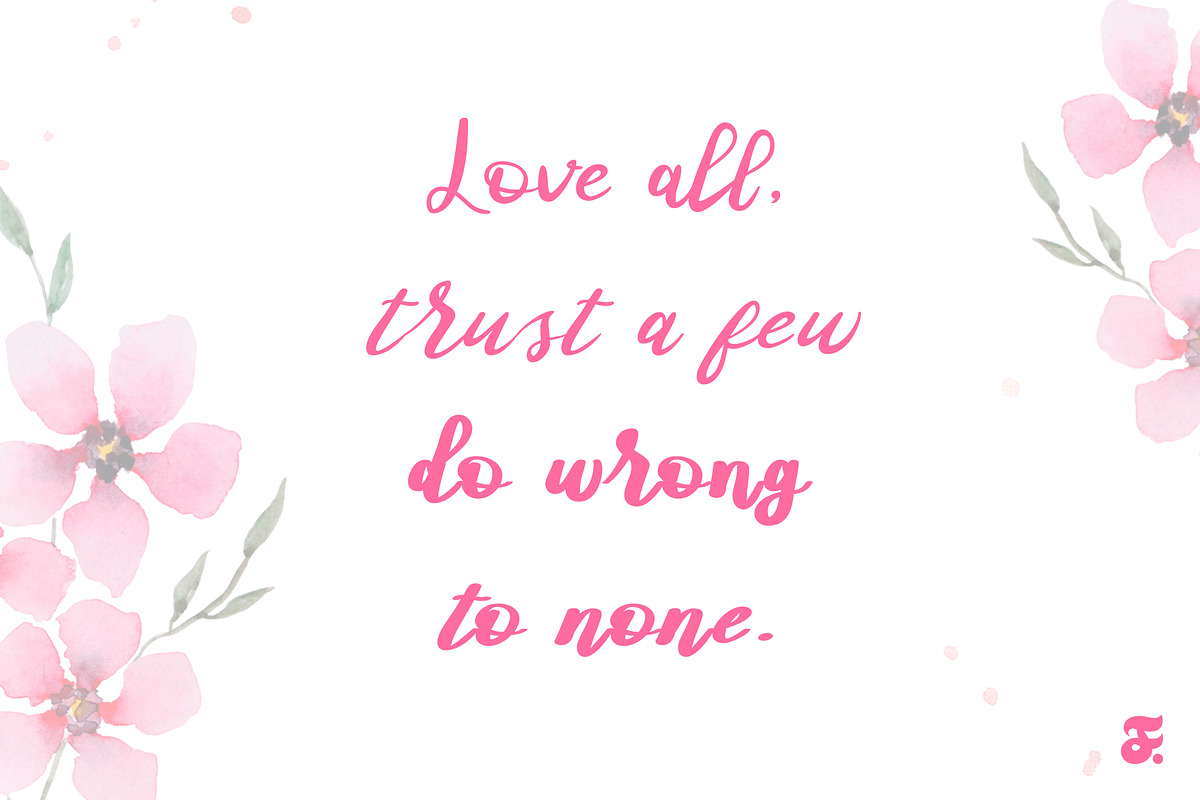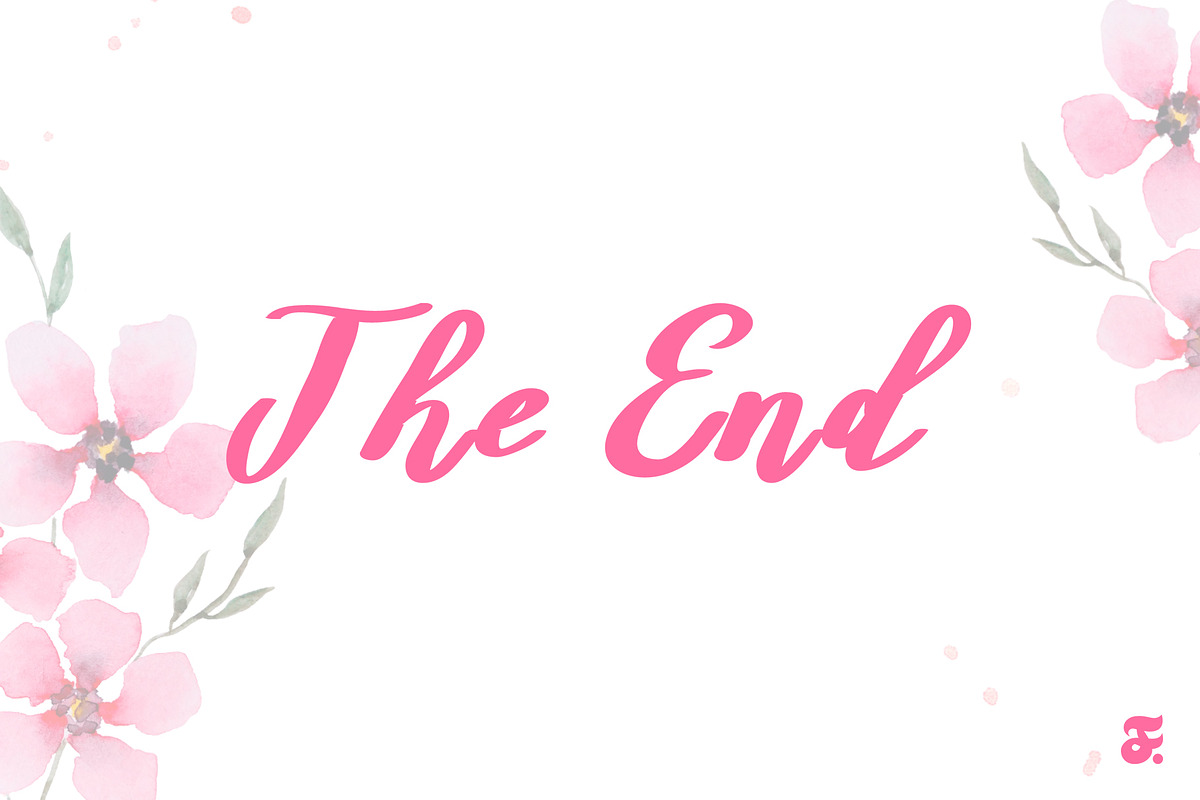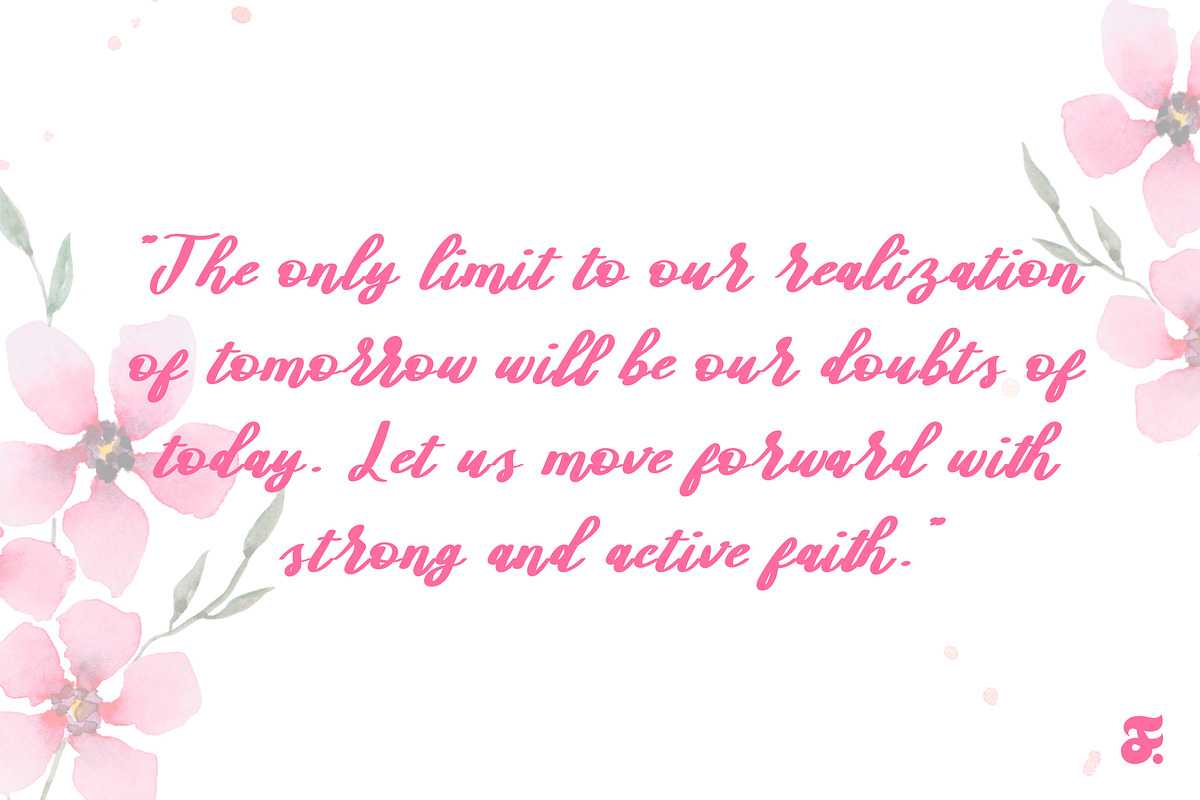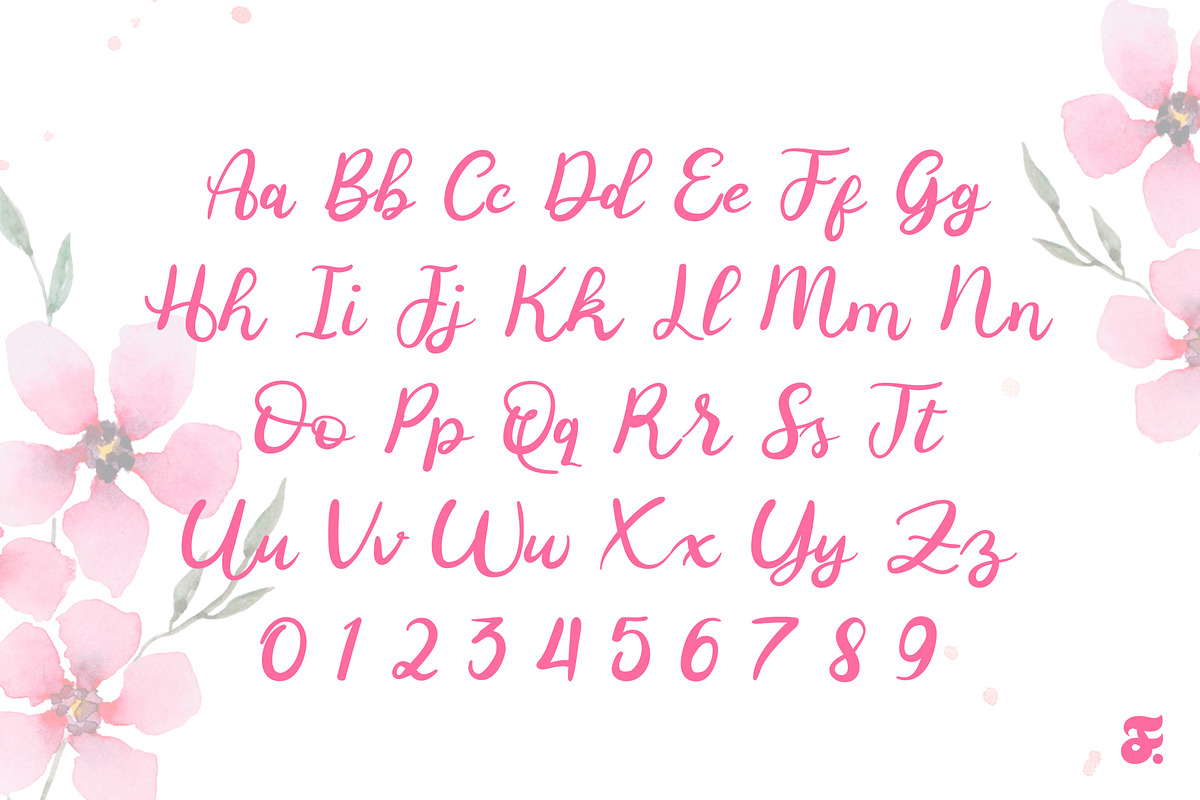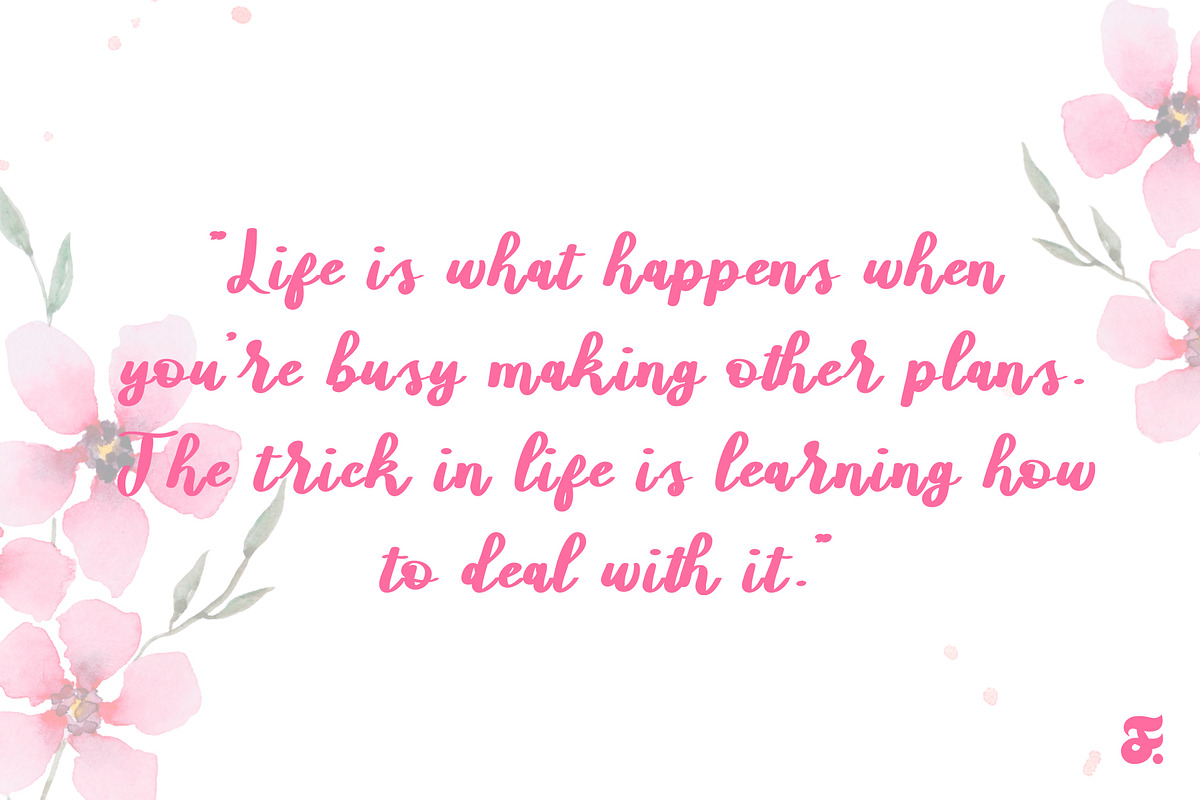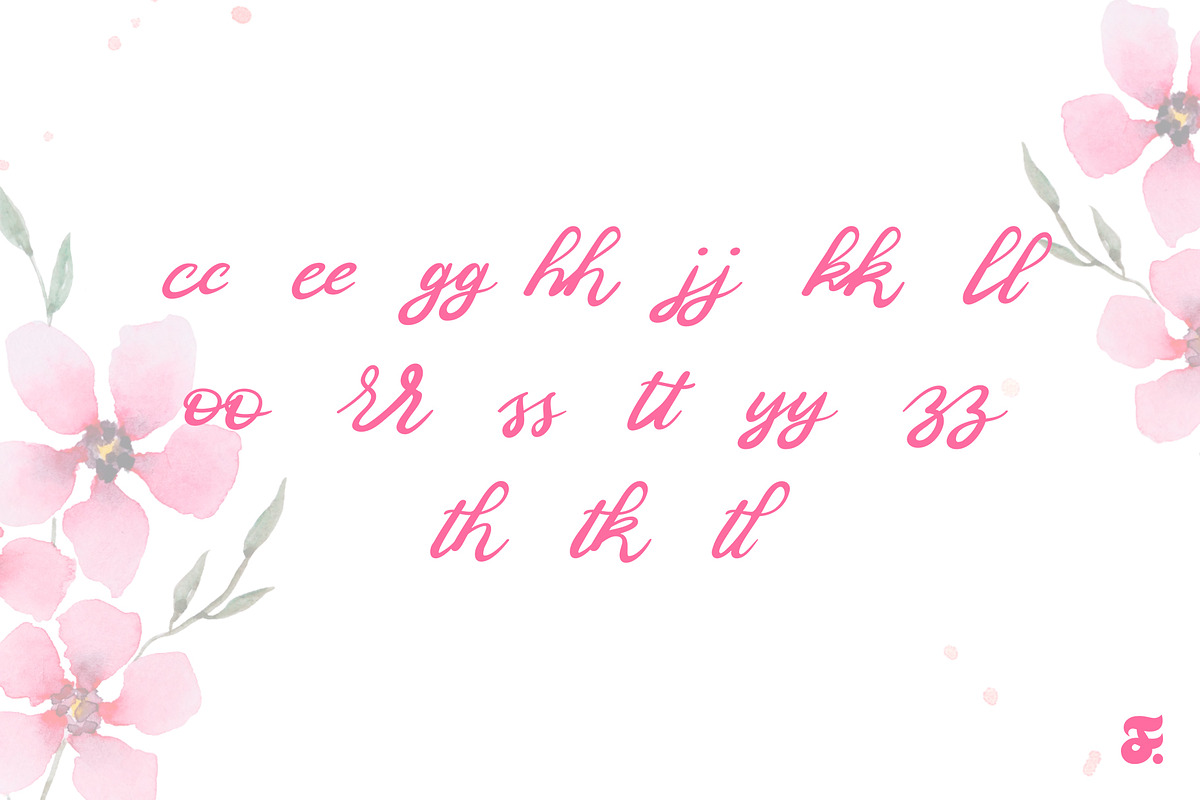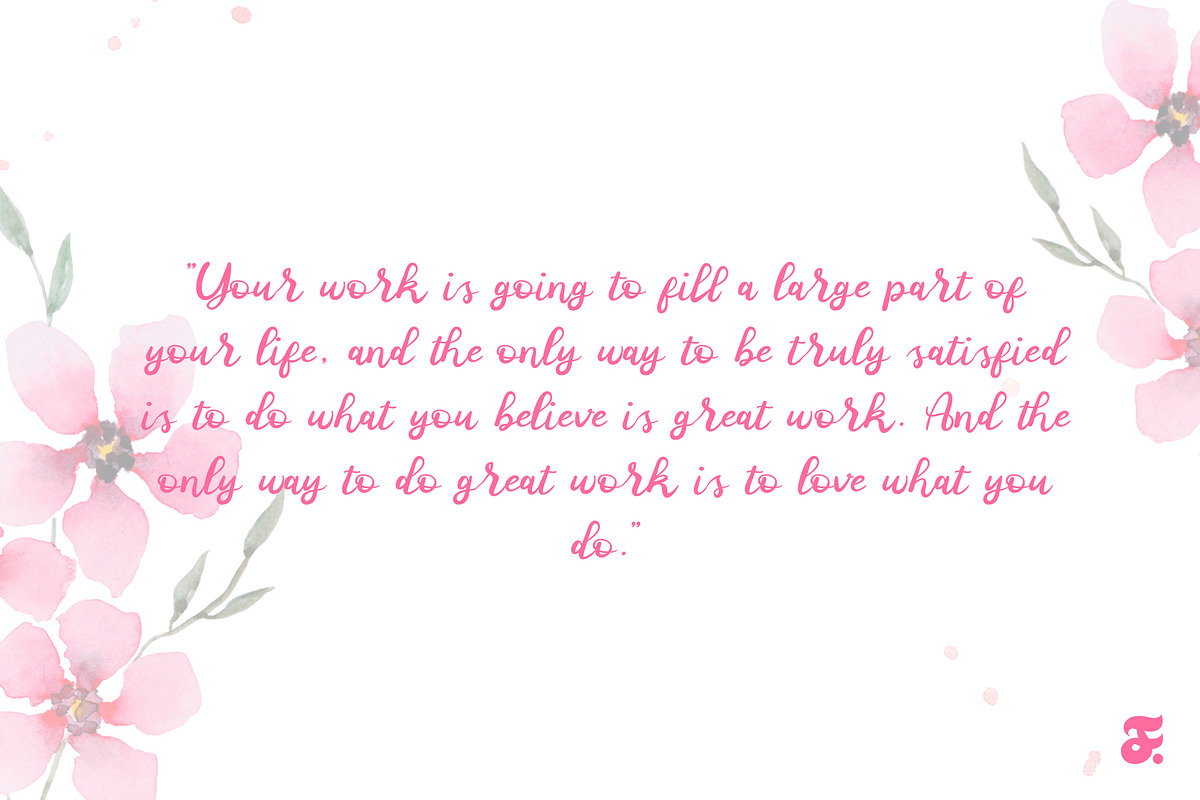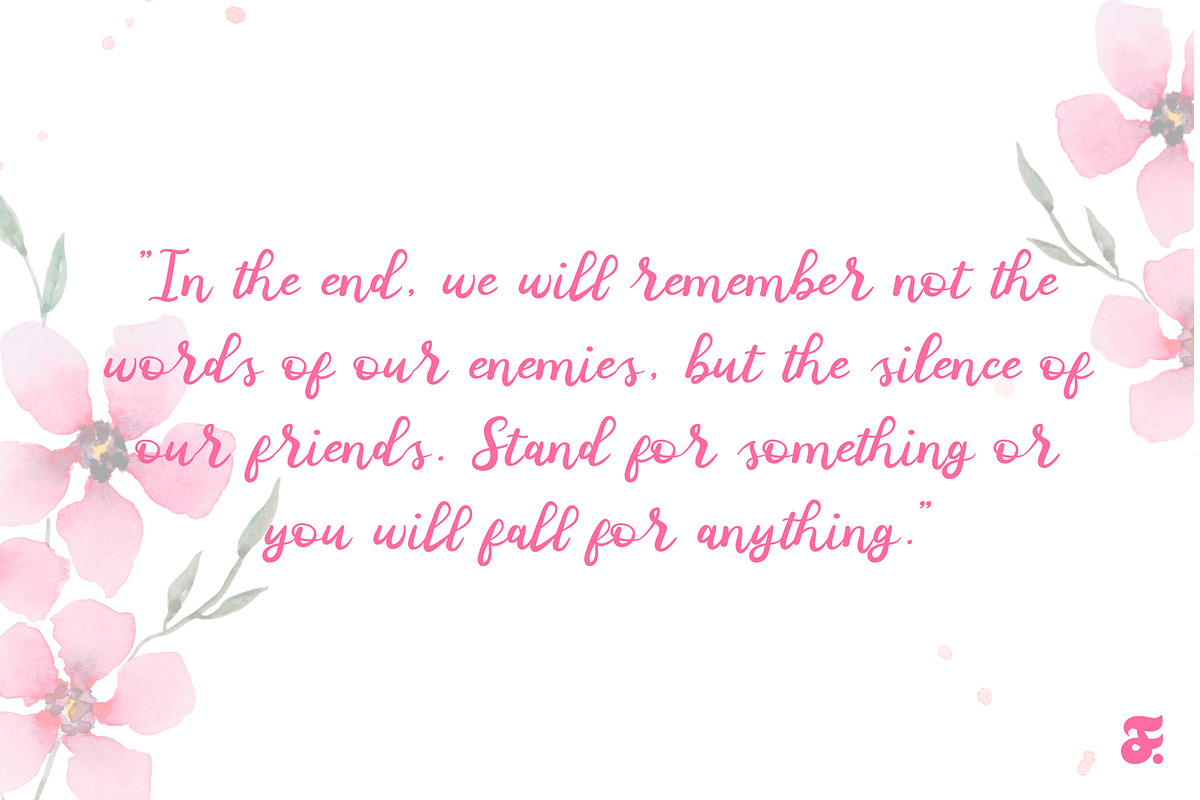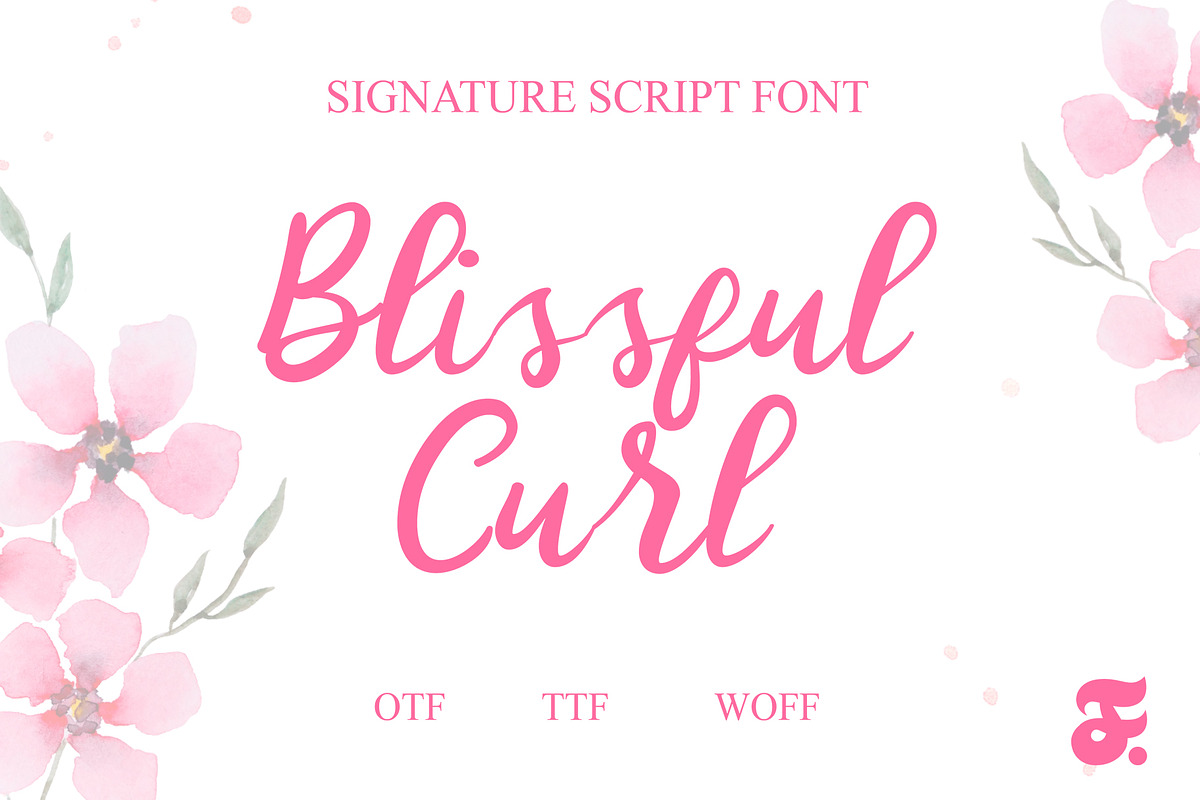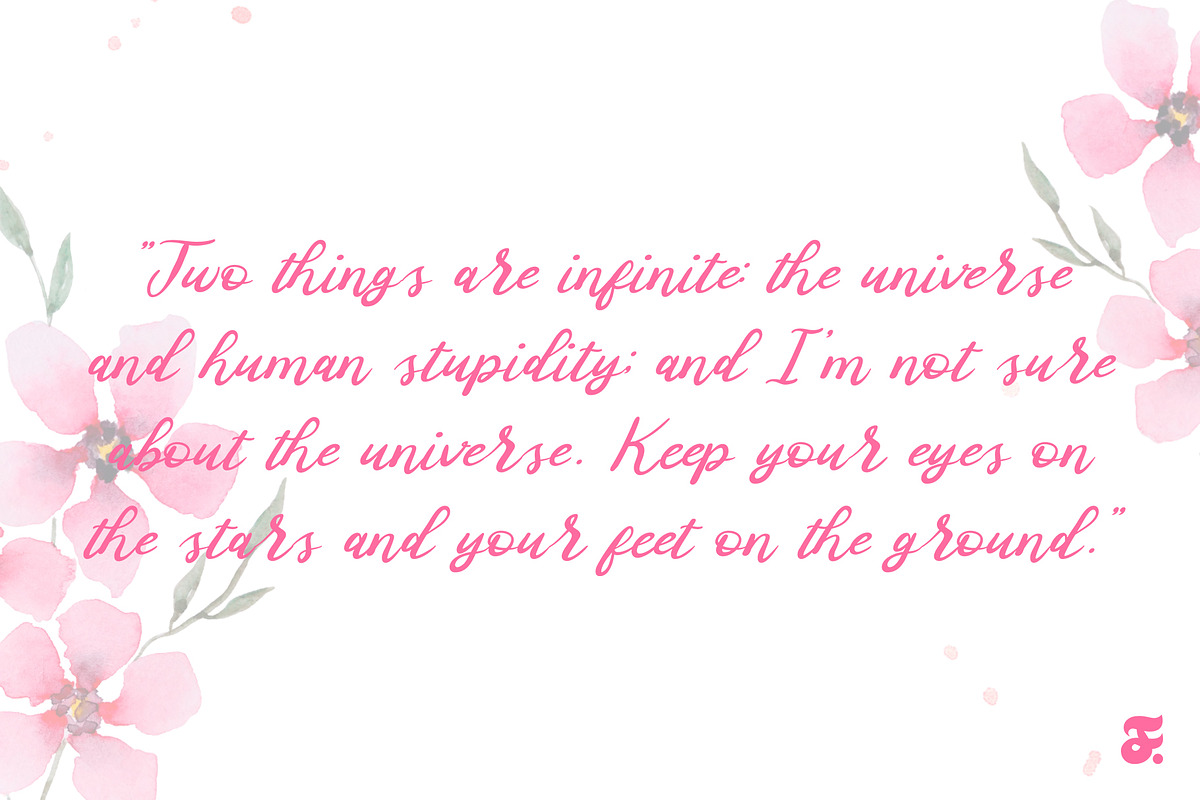
Blissful Curl Typerface
Blissful Curl Handwriting Script Typeface is a delightful fusion of elegance and playfulness, bringing a touch of whimsy to any design project. The typeface is meticulously crafted to mimic the fluidity and spontaneity of hand-drawn script, lending a personal and authentic feel to text. The characters exhibit a graceful curvature, reminiscent of cursive handwriting, with each stroke seamlessly connecting to the next, creating a harmonious flow that adds a touch of sophistication to any written expression.
This typeface is a versatile addition to the designer's toolbox, perfectly suited for a myriad of applications. Whether used in invitations, branding, or packaging, Blissful Curl effortlessly infuses a sense of warmth and friendliness. Its handwritten charm is accompanied by a subtle sense of modernity, making it equally fitting for contemporary projects. The typeface is designed with legibility in mind, ensuring that it not only captivates with its aesthetic appeal but also remains easily readable across various platforms.
Blissful Curl Handwriting Script Typeface is a celebration of individuality and creative expression. Each character carries a unique personality, making the typeface ideal for projects that seek to convey a personal touch. The graceful curves and intricate detailing make this script typeface a standout choice, allowing designers to effortlessly elevate their work and evoke a sense of blissful charm in the hearts of their audience. Whether applied to digital or print media, Blissful Curl Handwriting Script Typeface is a testament to the artistry that can be achieved through the marriage of technology and the timeless elegance of handwritten script.